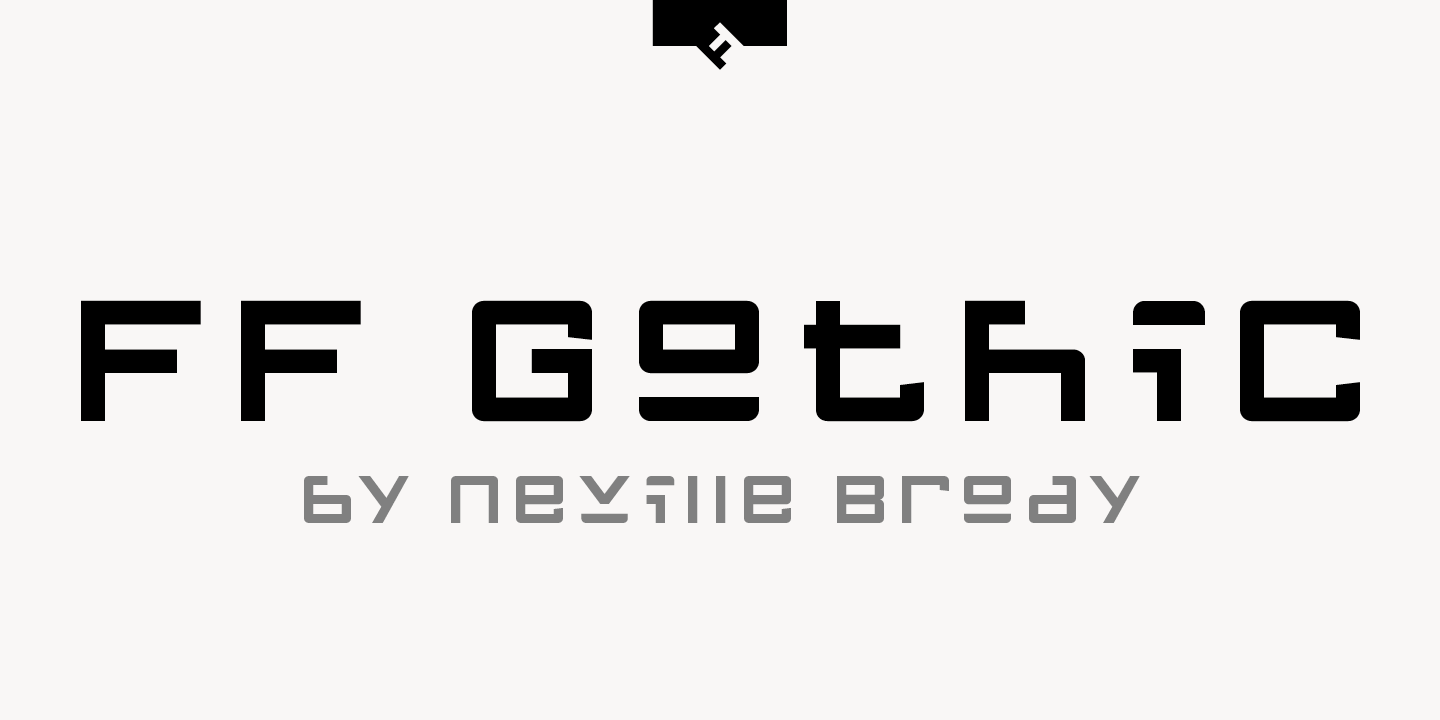
FF Gothic Font is ideal for contemporary design applications including corporate branding, architectural signage, transportation systems, wayfinding design, modern publications, digital interfaces, professional presentations, and urban planning projects. This versatile sans-serif typeface excels in environments that demand clarity, functionality, and modern aesthetic appeal.
What makes FF Gothic Font exciting is its systematic approach to typographic design that prioritizes legibility without sacrificing visual sophistication. The font features precisely engineered letterforms with optimal character spacing and balanced proportions that perform exceptionally well at both large display sizes and small text applications. Its neutral yet distinctive character makes it incredibly versatile for diverse design challenges.
The FF Gothic Font family encompasses extensive weight and width variations including Thin, Light, Regular, Medium, Bold, and Black options, each available in condensed, normal, and extended widths. This comprehensive system provides unparalleled flexibility for creating sophisticated typographic hierarchies and complex information design solutions.
This professional-grade typeface represents the evolution of functional typography for contemporary communication needs. Design studios and corporate clients choose FF Gothic Font Free Download for its exceptional performance in demanding professional environments. The font's systematic design approach makes it perfect for large-scale projects that require consistent visual identity across multiple applications. Its reliable functionality and contemporary aesthetic ensure effective communication while maintaining the high standards expected in professional design work.